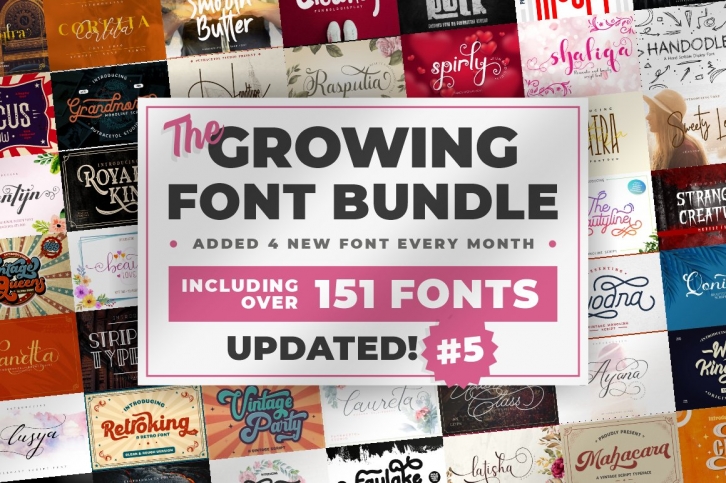
Introducing. This is the  AMAZING DEAL   we have ever made so far.
We proudly present  The Growing Font Bundle!
This Bundle contains all the fonts we have made so far, and will continue to grow and grow even more. That's why this bundle is called a "Growing Font Bundle" . Every month we will add 4 new fonts/typefaces that have been released in my shop or not yet released. So you will get some new fonts before they are available on market!
This bundle includes a varied range of font styles such as brush, script, sans, vintage, signature, display and more. Many have alternates, ligatures, multilingual, and swashes.
Suitable for logos, invitation cards, apparels, headlines, business cards, inspirational quotes, posters, wedding design, packaging, and a lot more!
UPDATED LIST
UPDATE #1 December 2019 :
UPDATE #2 January 2020 :
UPDATE #3 Febuary 2020 :
UPDATE #4 March 2020 :
UPDATE #5 April 2020 :
Font included :
- boldline - monoline bold typeface -   https://crmrkt.com/6Dw4K0
- Bornena   -   https://crmrkt.com/Pd02kV
- Busther - Handbrush Typeface  -   https://crmrkt.com/pON854
- Circuitra Color Font  -   https://crmrkt.com/vB01pD
- Corlita - Font Trio   -   https://crmrkt.com/RdqVo8
- Crava -   https://crmrkt.com/7K4jyx
- Darkrise Typeface -   https://crmrkt.com/PdDkom
- Daysha - Wedding Font -   https://crmrkt.com/rRN161
- DELACRUZ TYPEFACE -   https://crmrkt.com/2rOajr
- Digitechno - Futuristic Display Font  -   https://crmrkt.com/ad2w9e
- Dirty Rock Typeface   -   https://crmrkt.com/7K4a0w
- ELVINO    -   https://crmrkt.com/DXxVyG
- EUROLITE Sport Font + BONUS   -   https://crmrkt.com/6Dw8zj
- Florita Font Duo  -   https://crmrkt.com/1NJaEq
- Garis Lengkung - Colorful Font    -   https://crmrkt.com/ByBoR0
- Glamoury  -   https://crmrkt.com/kvN1jo
- Havina Font   -   https://crmrkt.com/eaNG7d
- Hello Eisya - Font Duo    -   https://crmrkt.com/1NJOQX
- High Mount    -   https://crmrkt.com/W5JQdd
- Horstail Typeface -   https://crmrkt.com/Krjwz6
- Kanaya - Romantic Font    -   https://crmrkt.com/KrjW6l
- Keshia Font   -   https://crmrkt.com/zwz85d
- Laureta   -   https://crmrkt.com/zwz1Q5
- Lusya - Elegant Script    -   https://crmrkt.com/yOvEwK
- Mahaputra -   https://crmrkt.com/W5JQmV
- Marceila  -   https://crmrkt.com/ByBaGA
- Maze Line Typeface    -   https://crmrkt.com/wWR1Kj
- Melodious Script  -   https://crmrkt.com/83jK2k
- Mixy Missy - 12 Styles Display Font   -   https://crmrkt.com/0xWJQA
- NETWORLD  -   https://crmrkt.com/6Dw459
- Nuri Font -   https://crmrkt.com/rRN1Me
- Pax Suyud - Brush + Rough Font    -   https://crmrkt.com/OdQxrp
- Pixel Bit Typeface    -   https://crmrkt.com/W5Joed
- Playlines Typeface    -   https://crmrkt.com/dyNKjJ
- Quiltix Typeface  -   https://crmrkt.com/jqM6jG
- Revalate - Stylistic Sans Serif   -   https://crmrkt.com/Nd2KGJ
- Rhonde - Modern Classic   -   https://crmrkt.com/zwz1NJ
- Rotters - Handbrush Font  -   https://crmrkt.com/Jd4Bor
- Rougher Brush Font    -   https://crmrkt.com/1NJOVD
- Royal King    -   https://crmrkt.com/Gr7qxp
- Secret Darling    -   https://crmrkt.com/ooN12j
- Shanela   -   https://crmrkt.com/xJq8Pk
- Shaquilla Font    -   https://crmrkt.com/2rOp7y
- Sherley   -   https://crmrkt.com/wWR954
- Silky Candy - Cute Sweet Font -   https://crmrkt.com/Gr7qxb
- Simbok Pudjie Script  -   https://crmrkt.com/VjWR5d
- Skywave Typeface  -   https://crmrkt.com/7K4j32
- Slatter - Handbrush Font  -   https://crmrkt.com/X7Ovjy
- SMASH WALL    -   https://crmrkt.com/vB08gW
- Stasya    -   https://crmrkt.com/pON1VV
- STRANGER CREATURE - HORROR FONT   -   https://crmrkt.com/7K4a0j
- Strip Deco    -   https://crmrkt.com/QdRQyz
- Sweety Lovers - Signature Script  -   https://crmrkt.com/0xWm9A
- Sweetyhearts  -   https://crmrkt.com/mBX8yy
- Tashia    -   https://crmrkt.com/vB01RW
- The Beautyline    -   https://crmrkt.com/4w7aQv
- The Circus Show - Display Font    -   https://crmrkt.com/Gr7q4W
- The Doctor Signature  -   https://crmrkt.com/OdQ7by
- The Ultimate Class Script -   https://crmrkt.com/Rdq4b8
- Therlalu - Condensed Sans Serif Font  -   https://crmrkt.com/3wp7GV
- Thickline - Classic Bold Font -   https://crmrkt.com/A9zqQm
- Tikiland Typeface -   https://crmrkt.com/Jd4Gvw
- ULTIMATE SLAYER - Handbrush Font  -   https://crmrkt.com/q0N85W
- Valentijn - Romantic Font -   https://crmrkt.com/Jd4B6V
- Vintage Party - Bold Retro Script -   https://crmrkt.com/PdxVAX
- Vintage Queens - Retro Bold Script    -   https://crmrkt.com/vB085x
- Visaka    -   https://crmrkt.com/VjAeB0
- Waffle Latte  -   https://crmrkt.com/VjWRdk
- West Kingdom  -   https://crmrkt.com/OdQ7k8
- Yesie - Monoline Cursive Script Font  -   https://crmrkt.com/xJq1Mv
- Yuanita - Modern Calligraphy Font -   https://crmrkt.com/QdRwNm
- Zahiya    -   https://crmrkt.com/zwz8a5